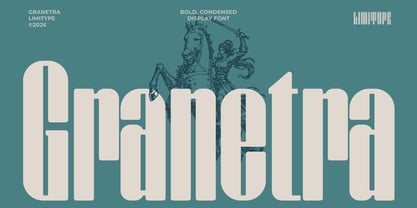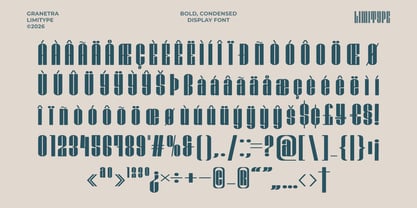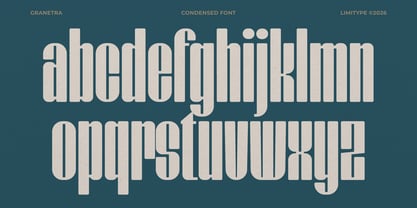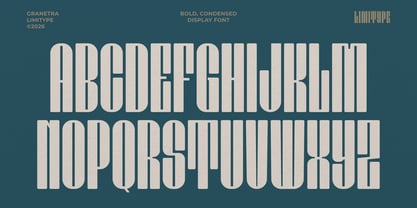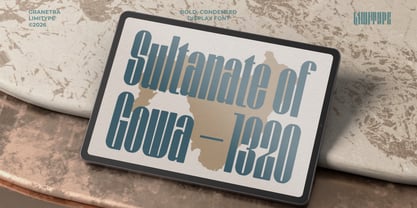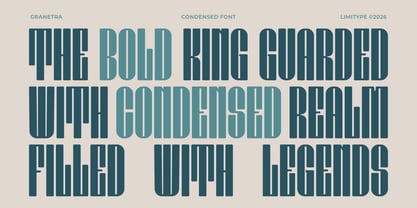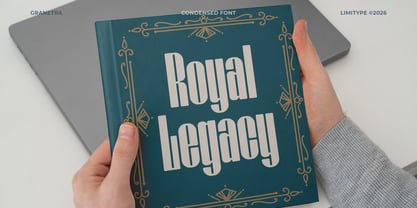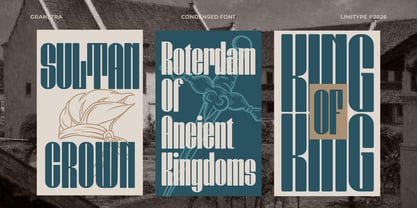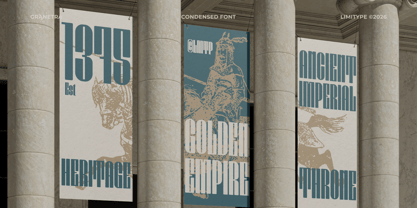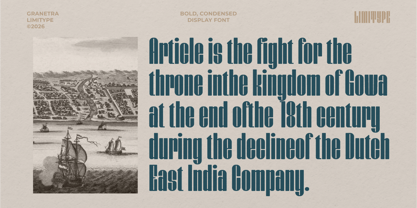
Granetra
von limitype
Die Schriftfamilie Granetra wurde von Muhammad Muammar, Furqan Sudirman entworfen und von limitype veröffentlicht. Granetra enthält 1 Stile. Mehr über diese Familie
Granetra is a bold condensed display font that combines strength, elegance, and a memorable character. Featuring tall, assertive letterforms and distinctive vertical stencil inspired cuts, Granetra creates a royal, monumental, and confident impression. Designed to capture attention instantly, this font is ideal for branding, posters, headlines, logotypes, packaging, editorial layouts, and a wide range of creative projects that demand a bold and distinctive visual presence.
Designer: Muhammad Muammar, Furqan Sudirman
Foundry: limitype